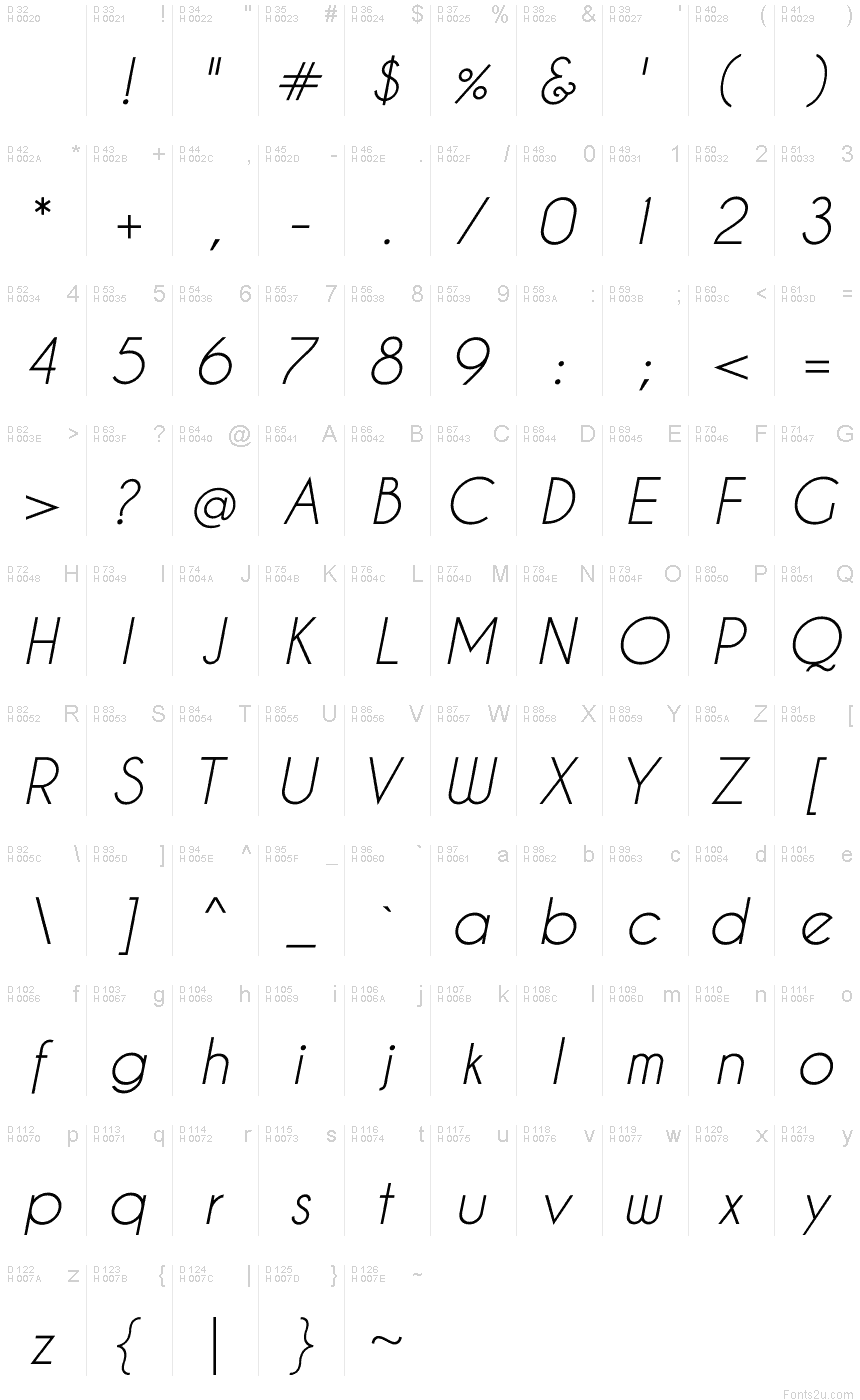
Caviar Dreams Italic
*Made corrections and additions to Cyrillic.
A geometric sans serif wirh a dastardly angled lowercase letter e, and those w's with those lovely letter lumps. Extreme round overshoot may be disturbing to some viewers. Viewer discretin is advised.